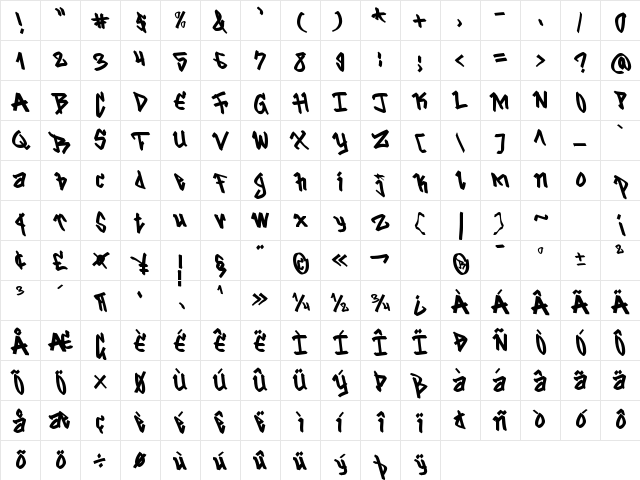
Blangkon Regular Free Font
Blangkon Regular
Designer: Ahmad Afandi
Design Context for Blangkon
Blangkon is a composed and adaptable typeface that performs quietly and consistently across a wide range of design contexts.